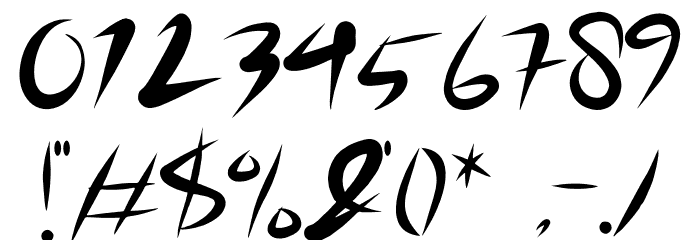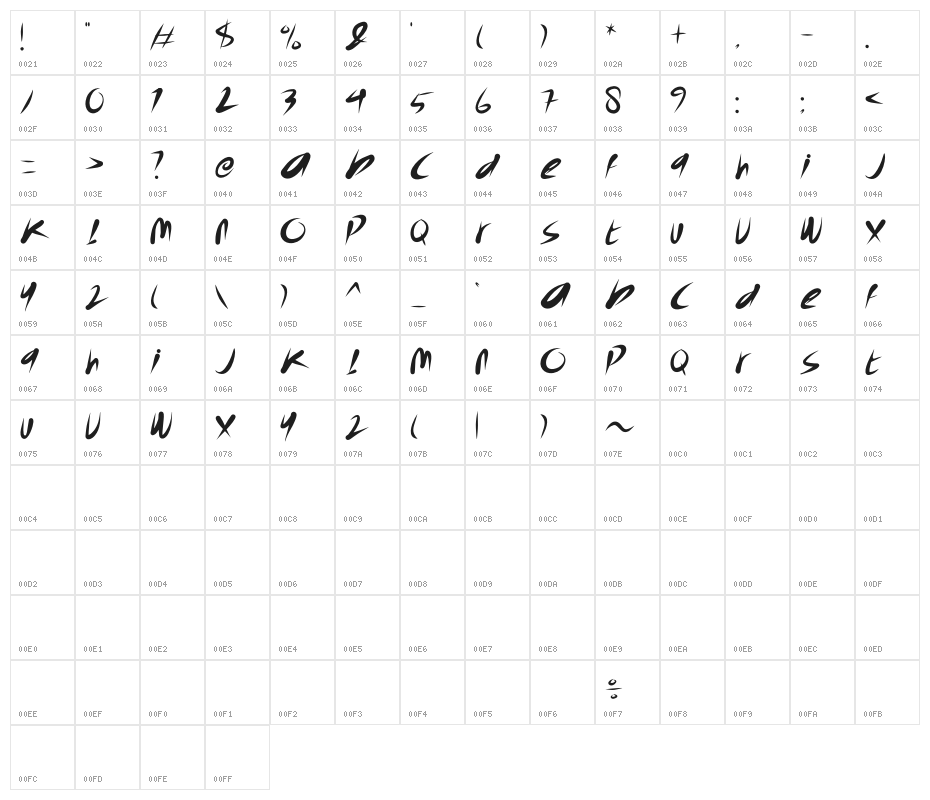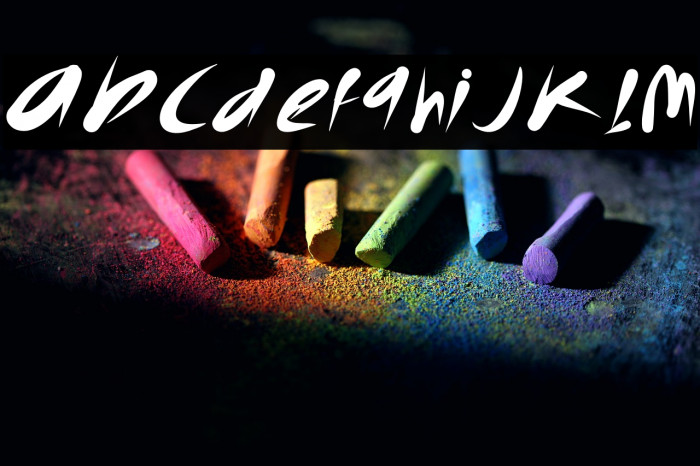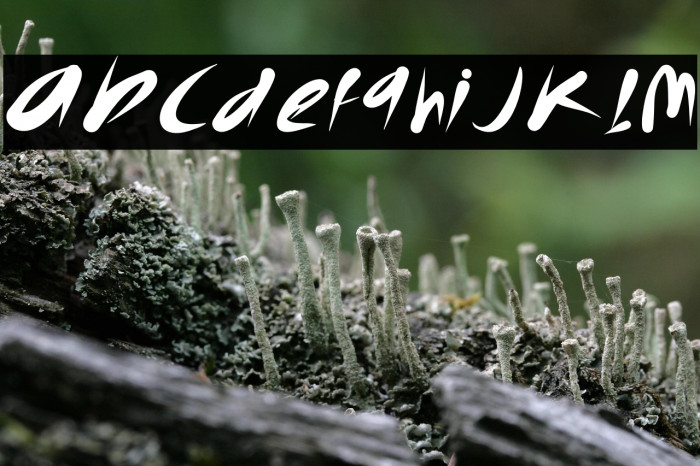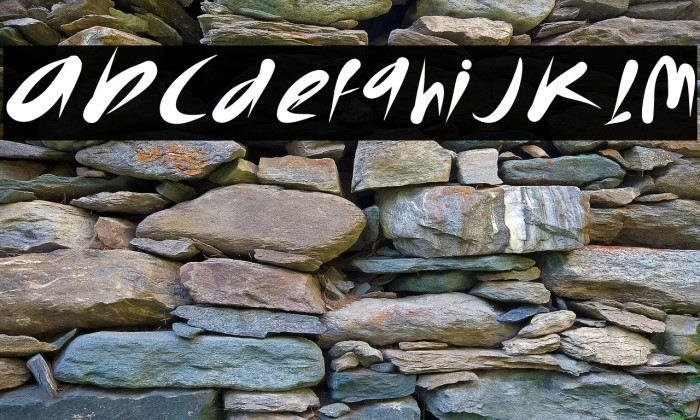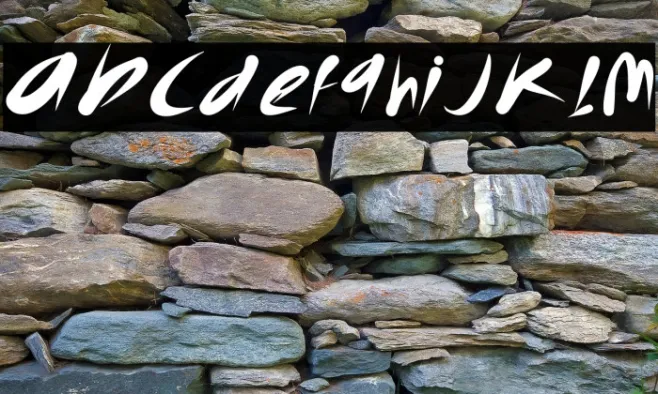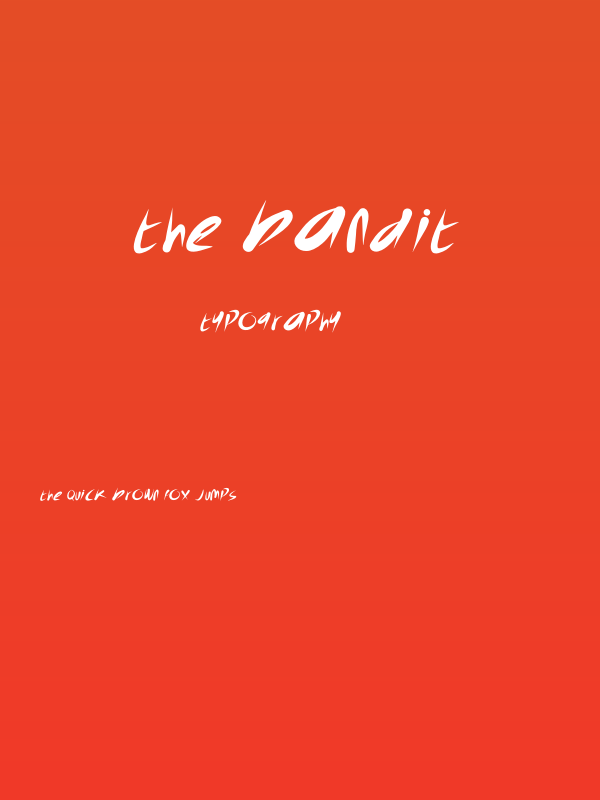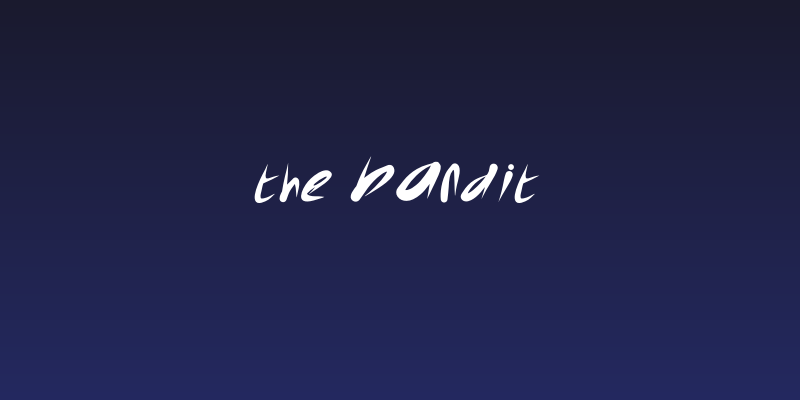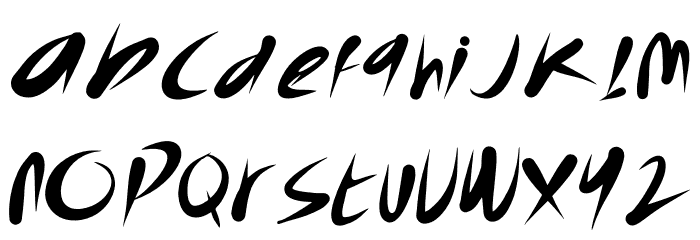
The Bandit Font
The Bandit Description
This font exudes a dynamic and energetic style, characterized by its sharp, angular strokes and bold presence. The letters have a hand-drawn, brush-like appearance, with varying thickness that adds a sense of movement and flair. The uppercase and lowercase letters maintain a consistent style, with exaggerated curves and pointed ends that give it a rebellious and edgy feel. The numbers and special characters follow the same aesthetic, ensuring a cohesive look across all elements. This font is perfect for projects that require a bold statement and a touch of artistic flair.
| Overall Style | Modern, Edgy |
| Proposed Projects | Ideal for posters, album covers, branding, and any project needing a bold, artistic touch. |